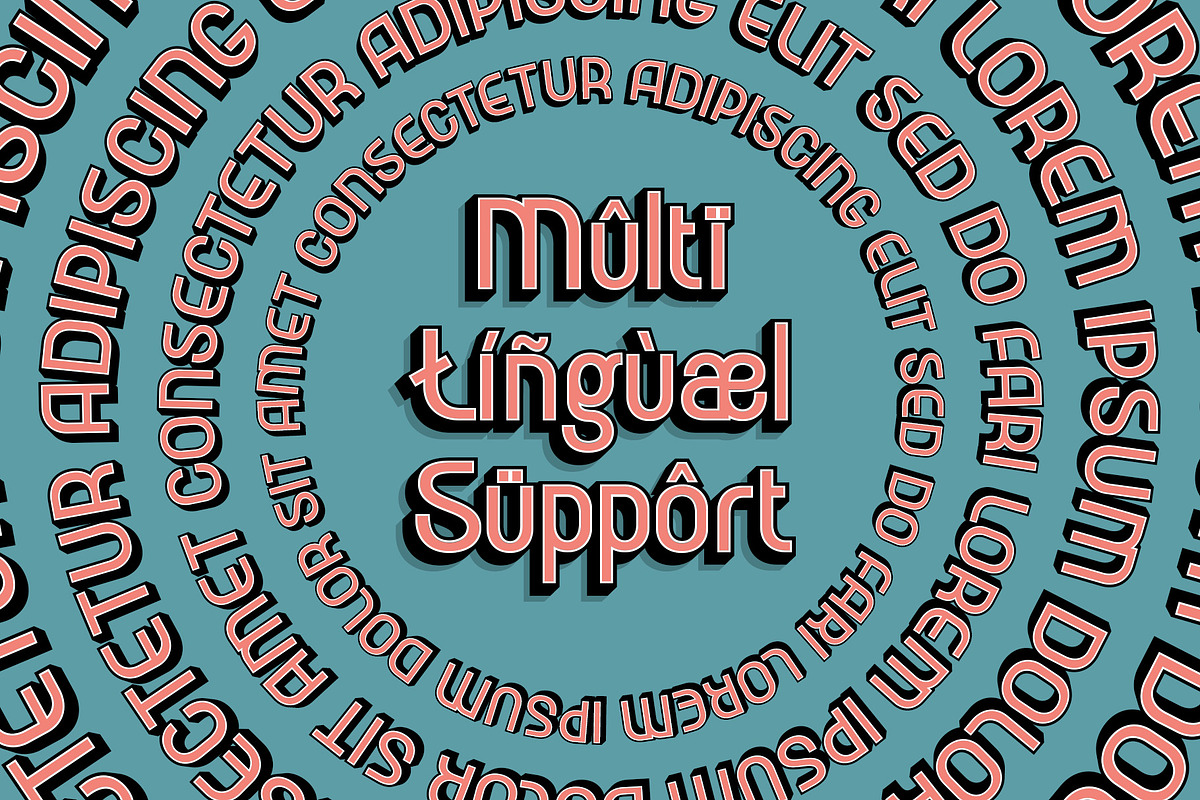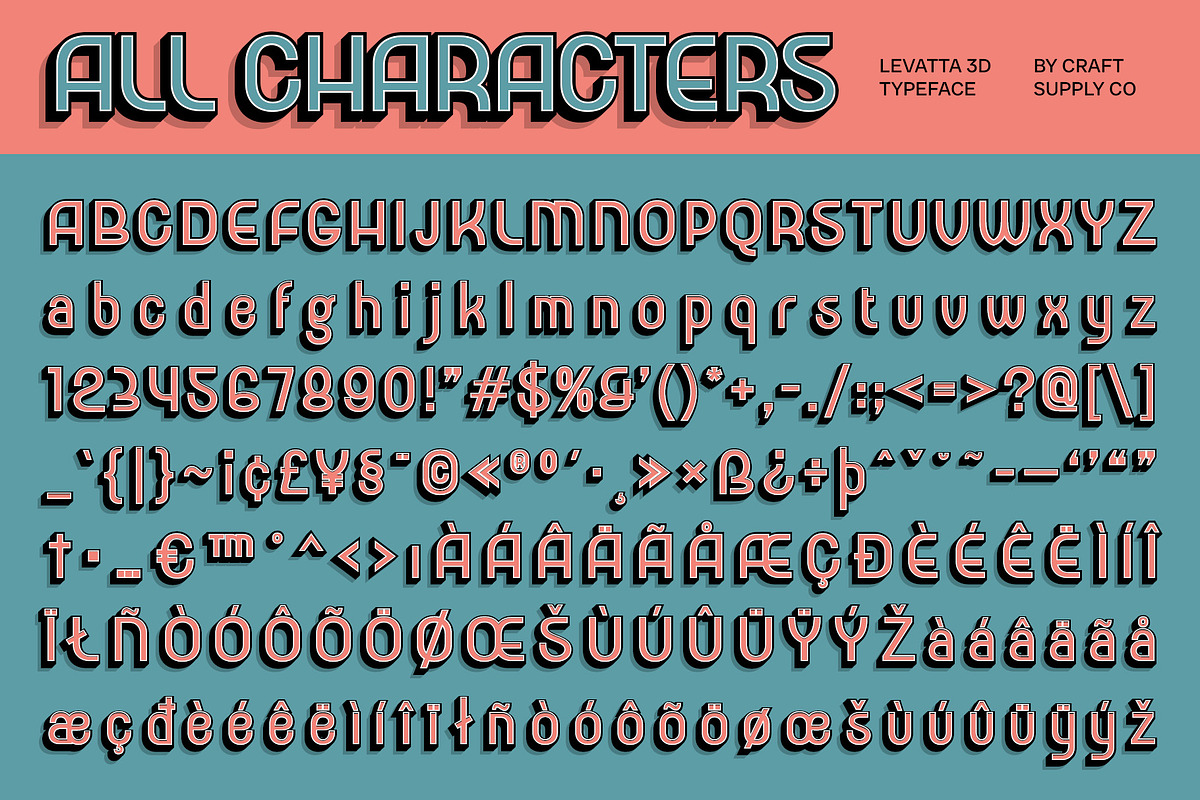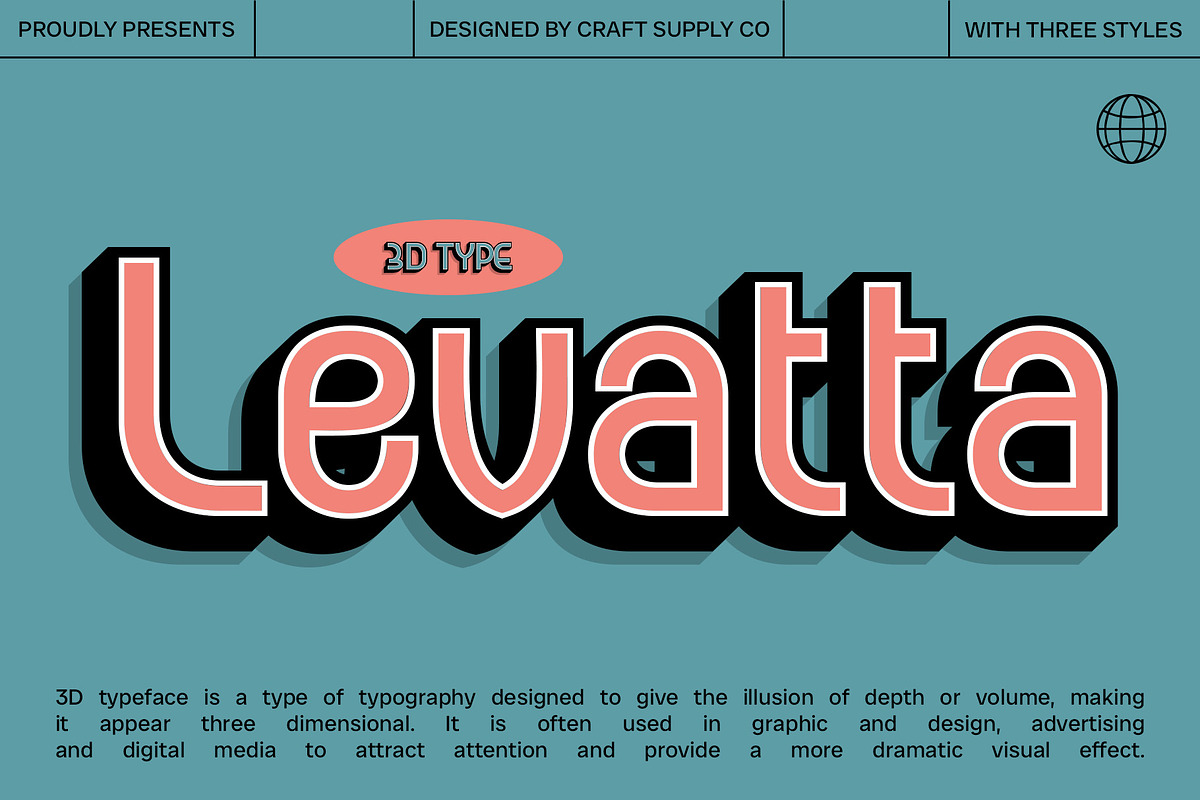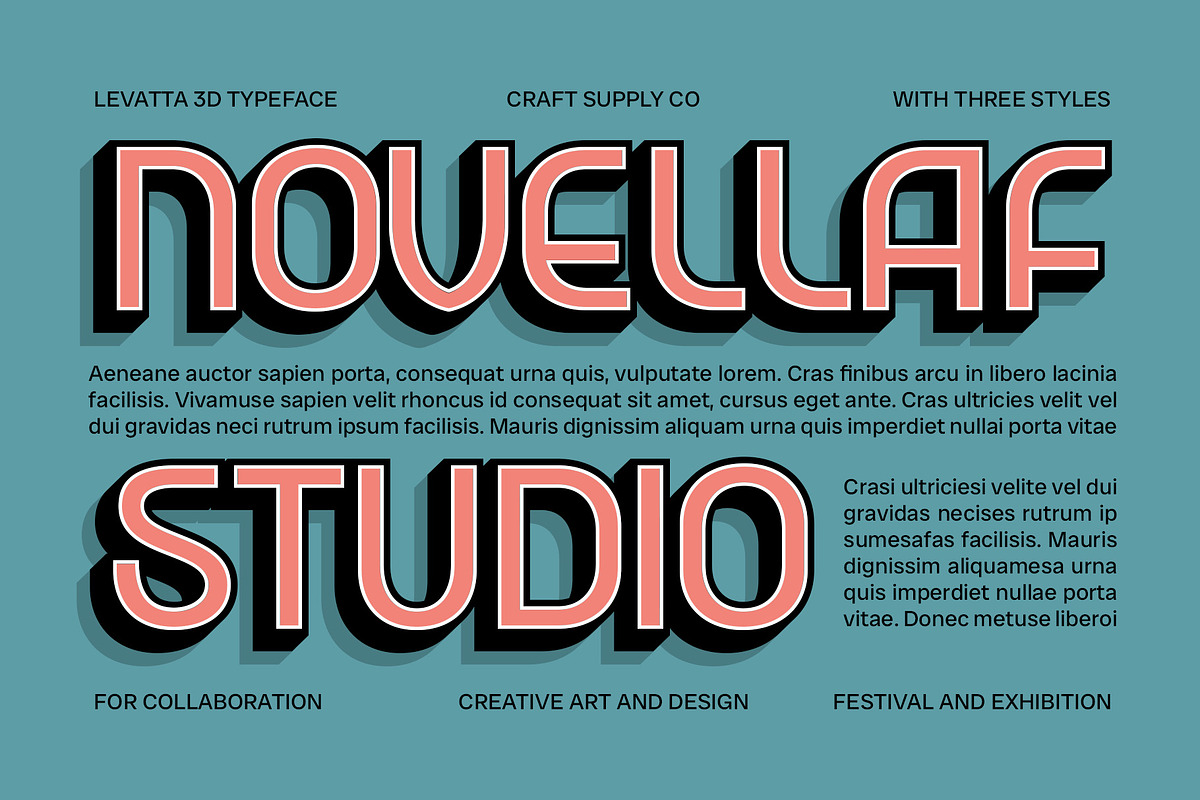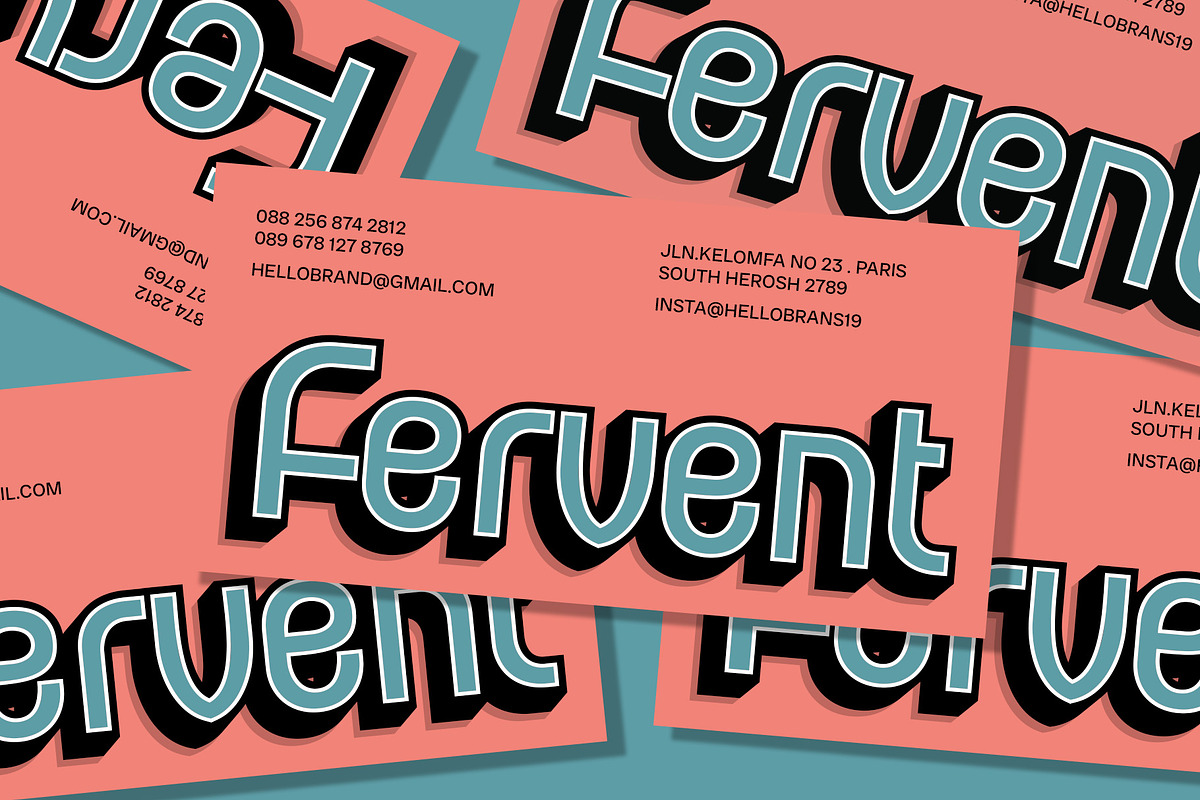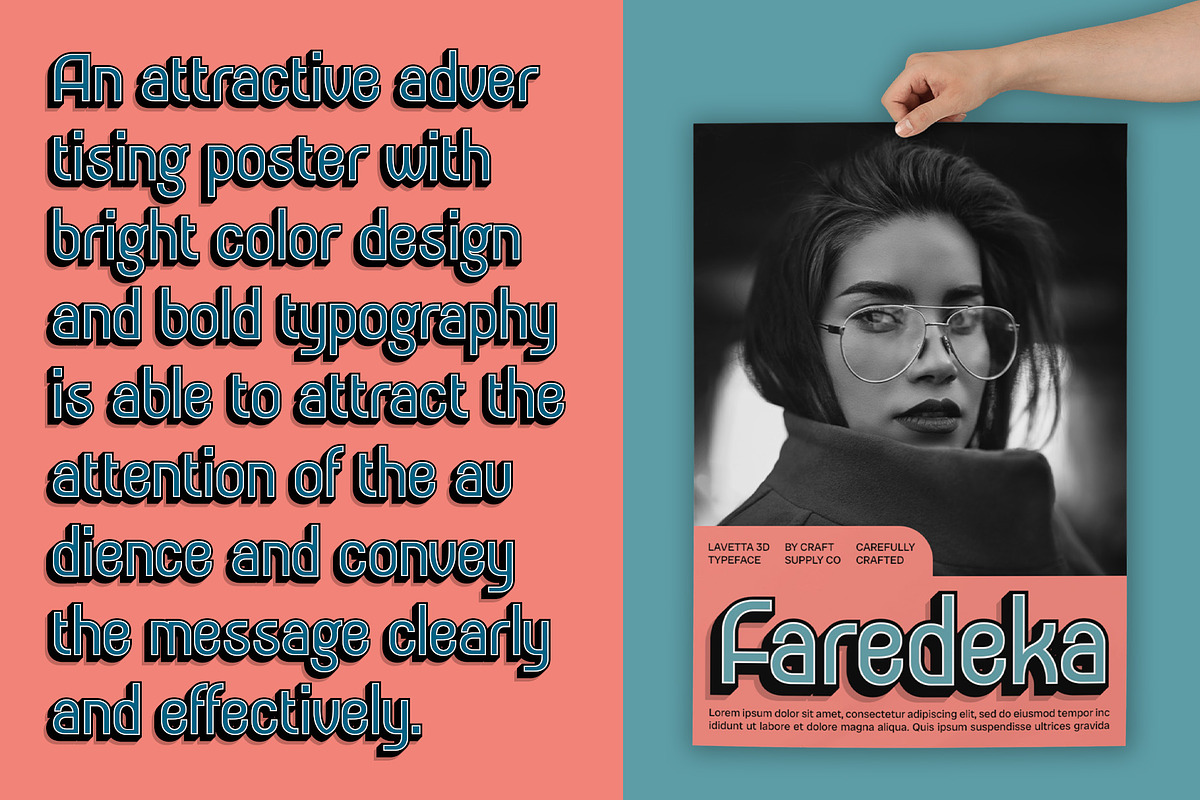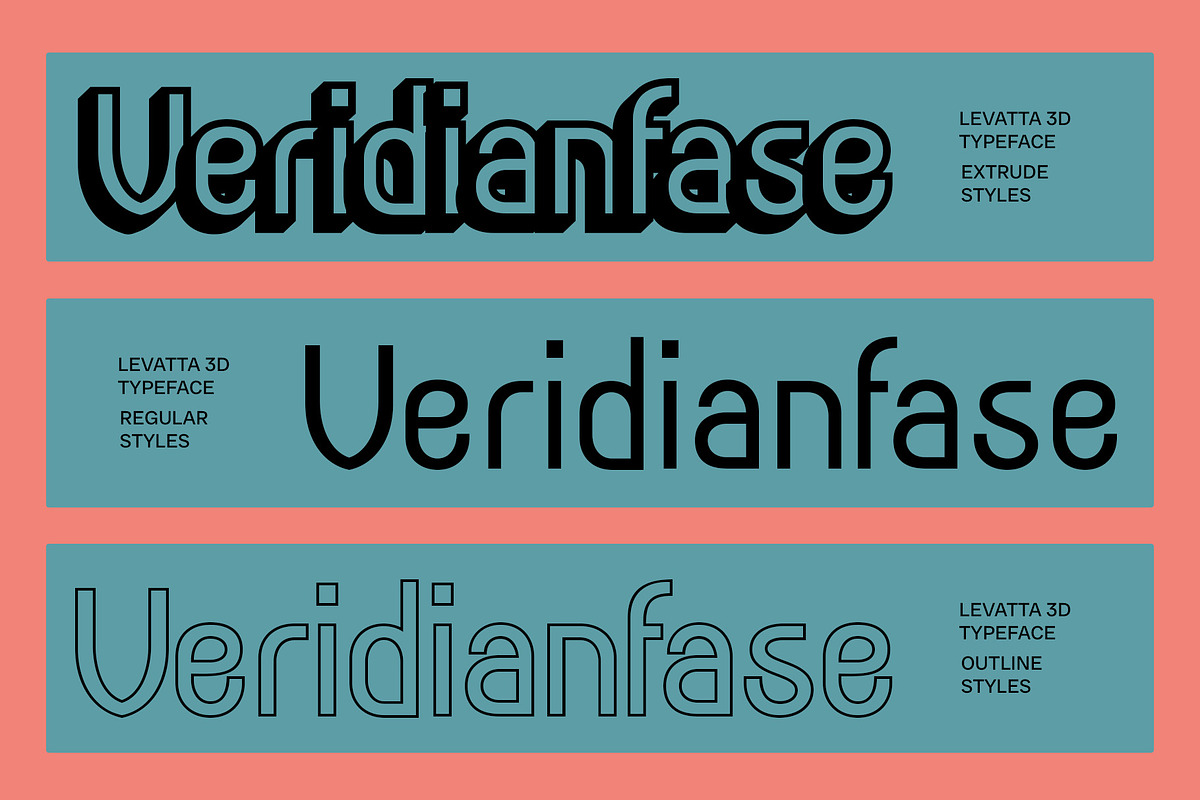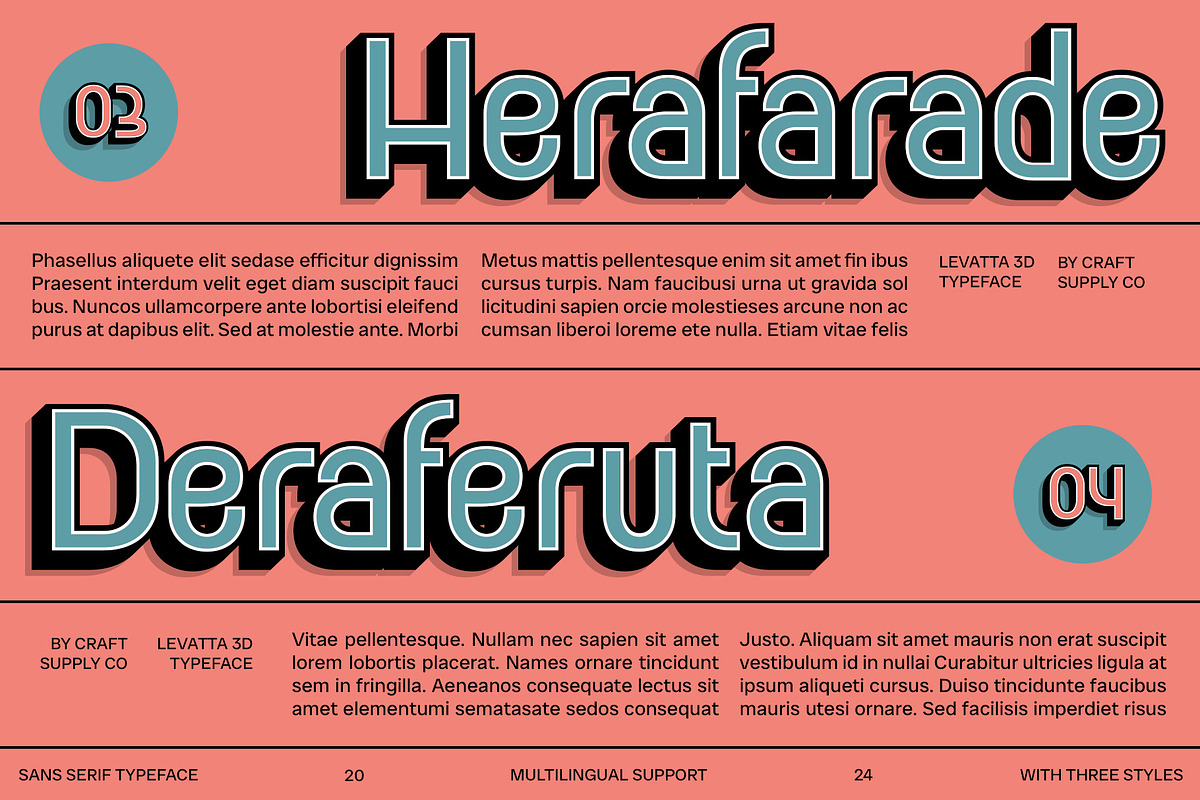
Levatta 3D
Levatta 3D – Geometric Sans Serif Font: Bold Forms and Intriguing Depth
Modern Geometric Design Levatta 3D is a modern sans serif font that draws inspiration from fundamental geometric shapes such as circles, triangles, and squares. Its clean lines and sharp angles create a neat, organized impression, making it perfect for contemporary design projects. The geometric foundation lends a sense of structure and clarity, enhancing its versatility across various applications.
Dynamic 3D Effect for Added Depth The defining feature of Levatta 3D is its captivating three-dimensional effect, which infuses the design with an intriguing illusion of depth. This dimensionality not only enhances the visual character of the font but also elevates its presence in any layout. The 3D effect makes it ideal for branding, advertising, and poster designs that require a striking visual impact.
Versatile for Diverse Applications Levatta 3D excels in a wide range of design contexts, from modern branding initiatives to eye-catching promotional materials. Its geometric shapes ensure a contemporary aesthetic, while the 3D effect captures attention and creates visual interest. Despite its bold presence, Levatta 3D maintains excellent readability, ensuring that your message is communicated clearly.
- Levatta Regular
- Levatta Outline
- Levatta Extrude Right
- Levatta Extrude Left